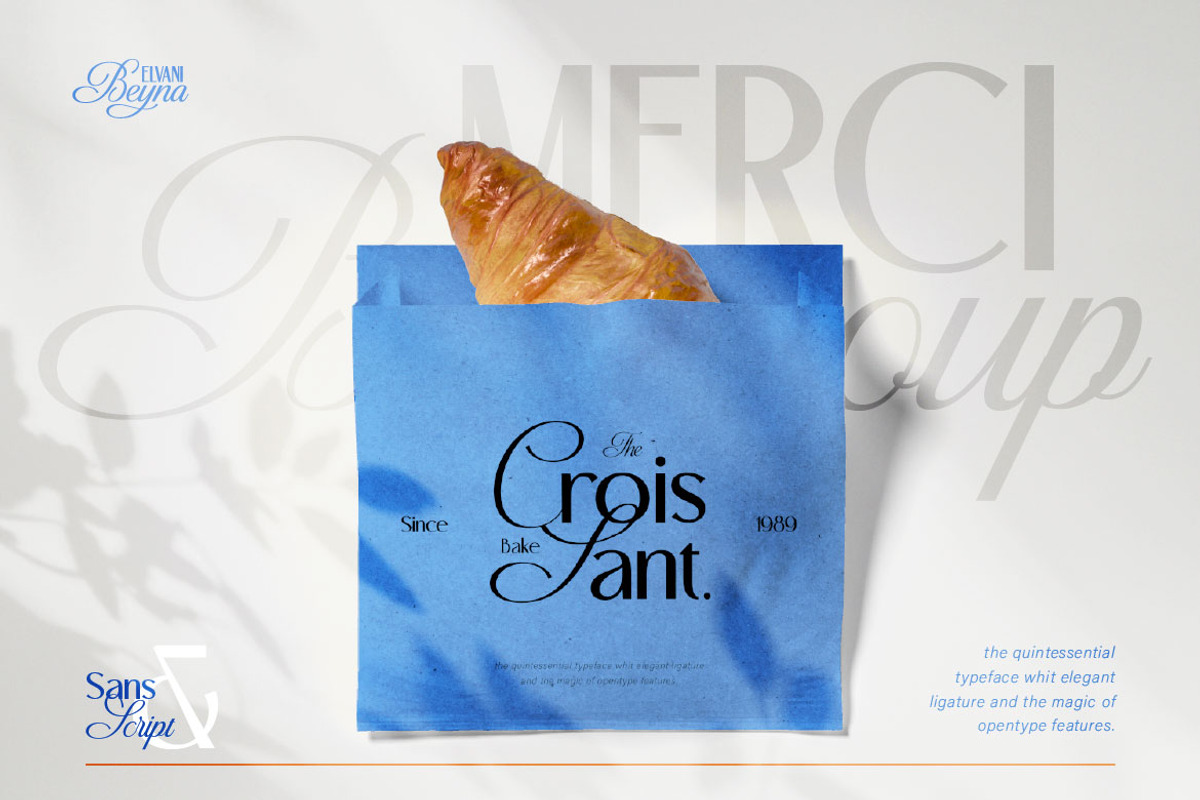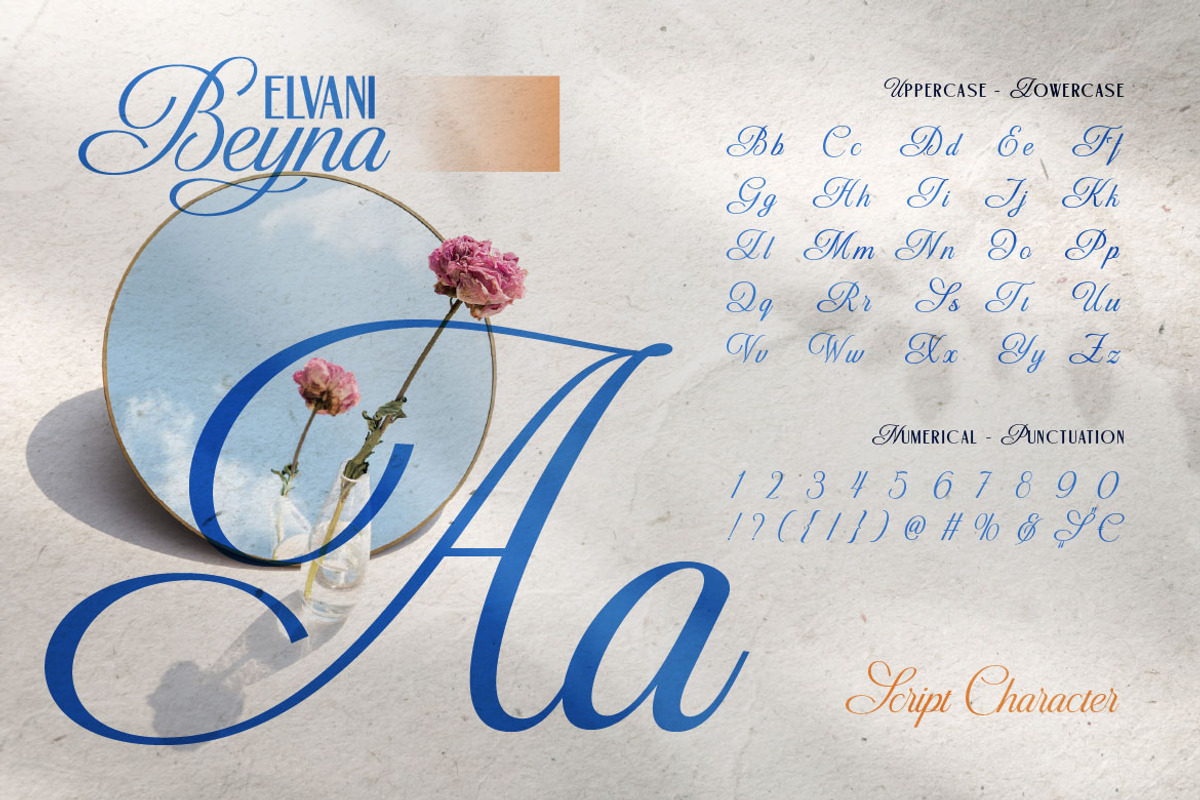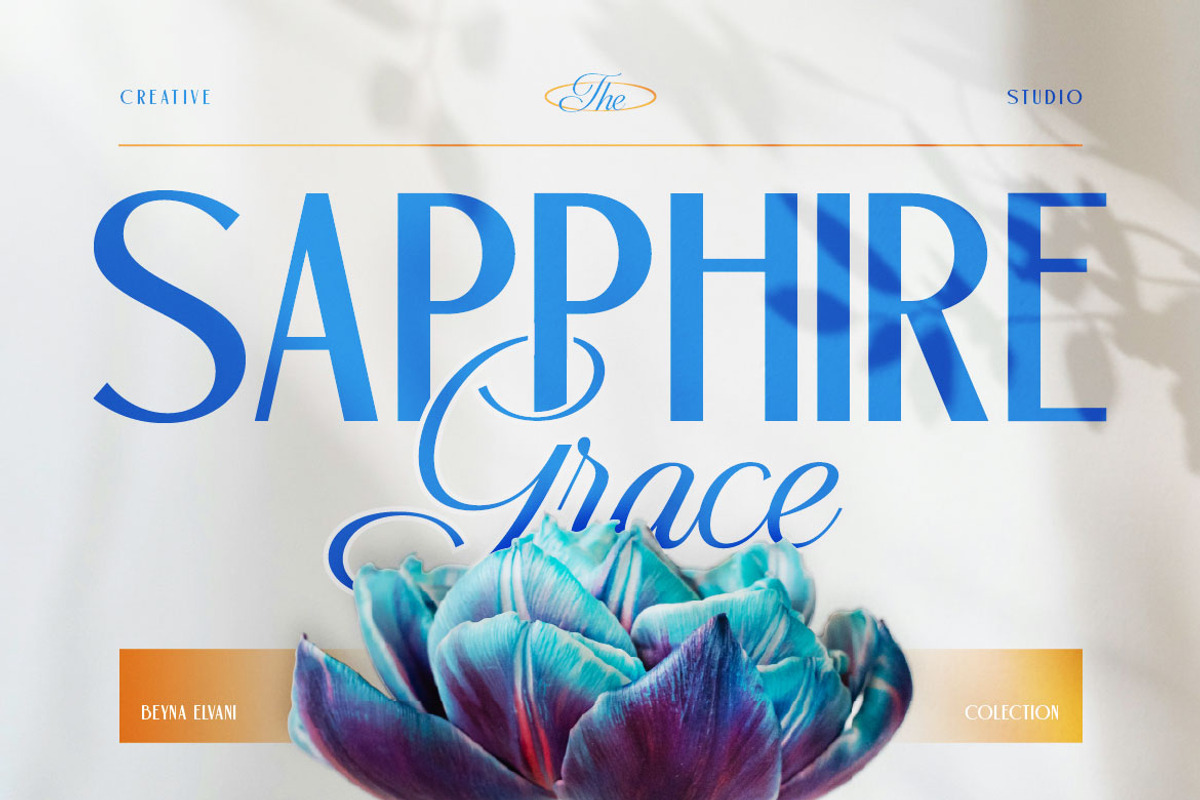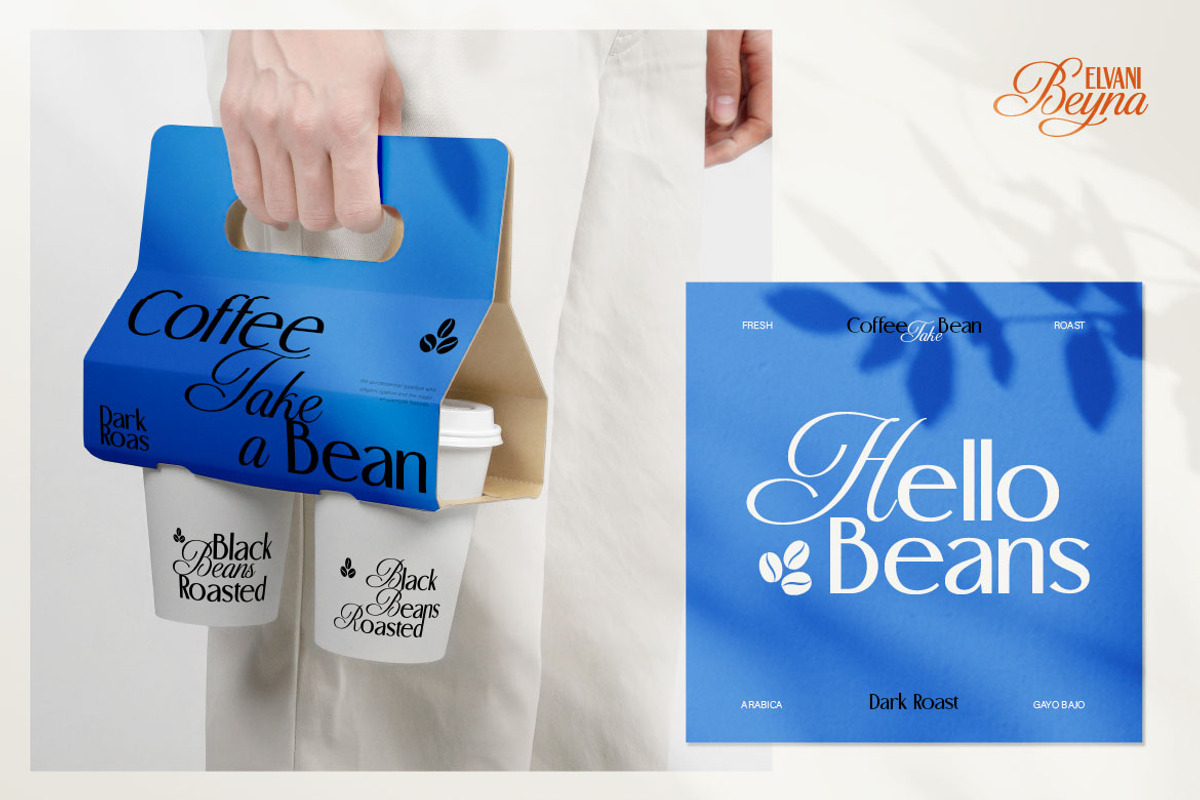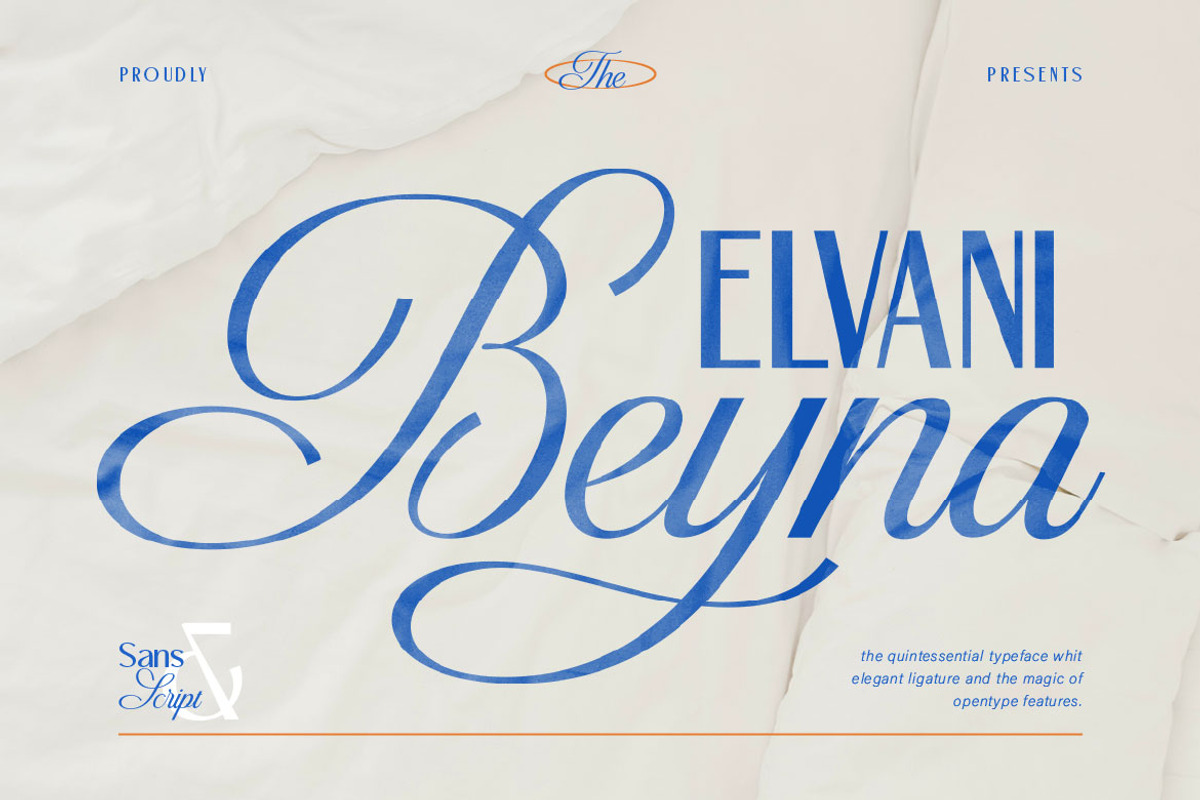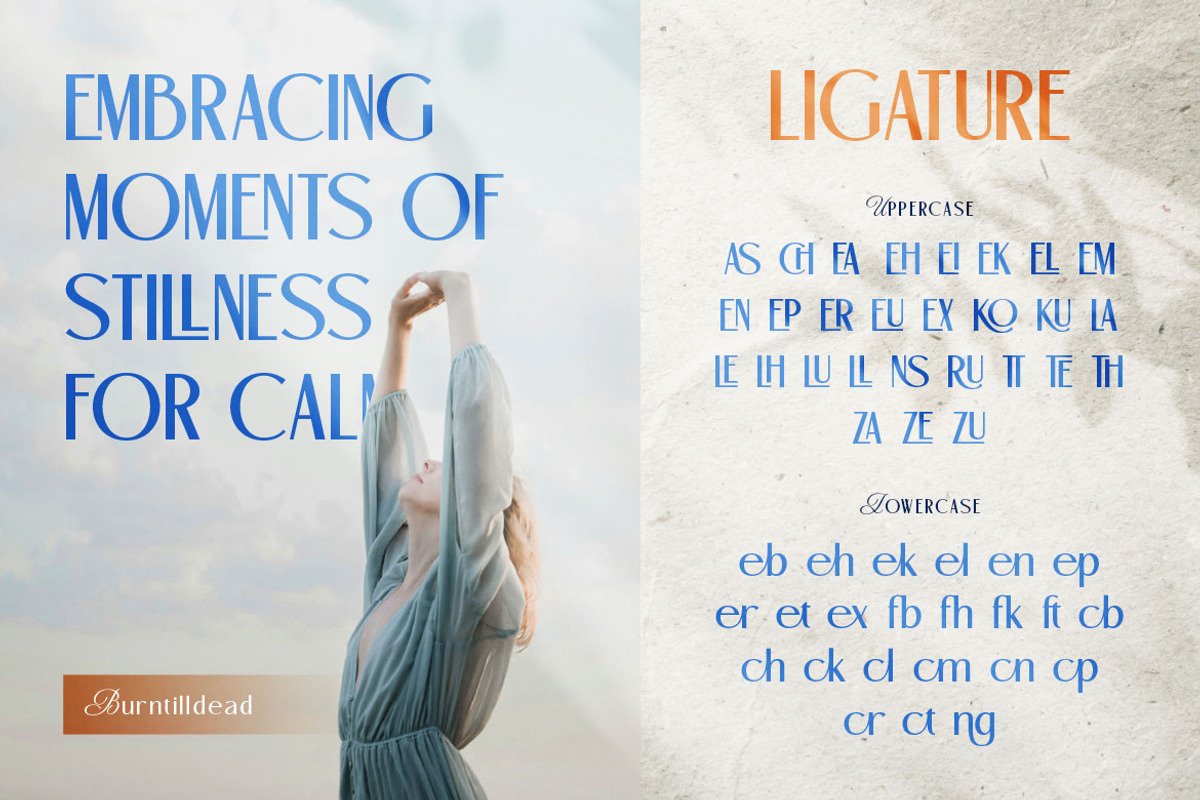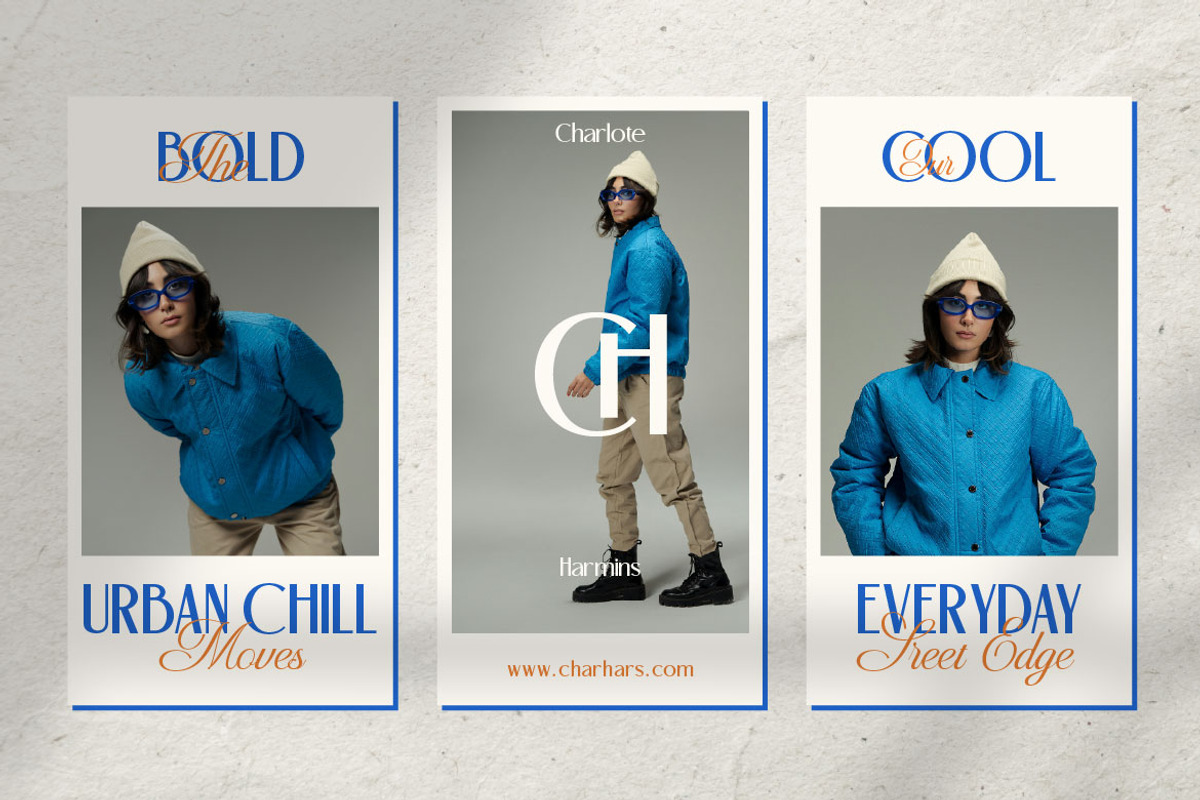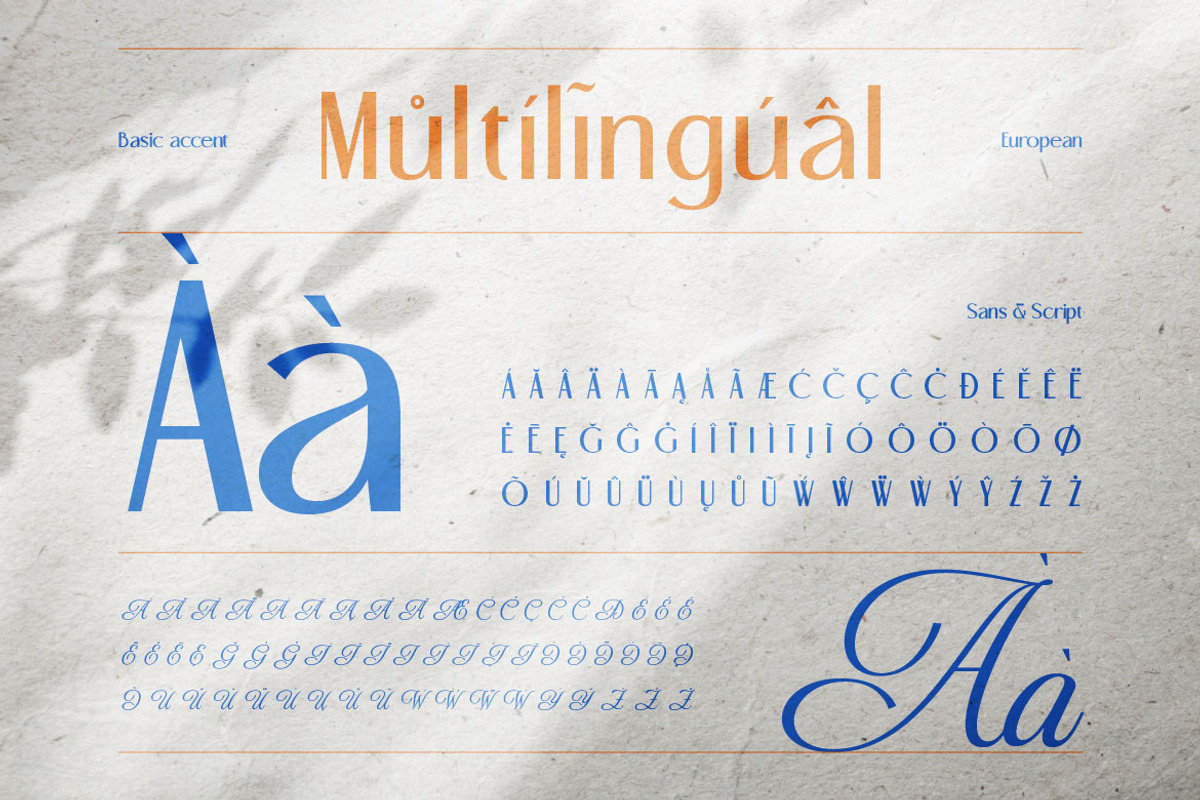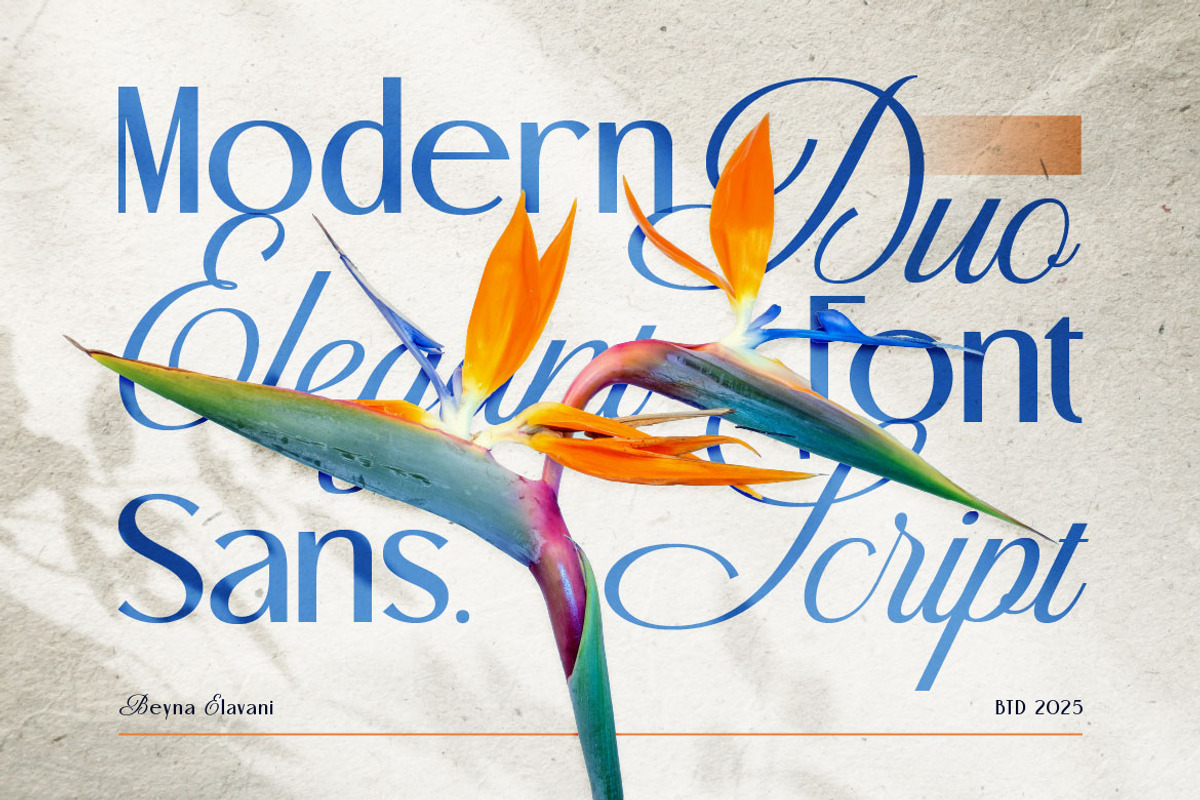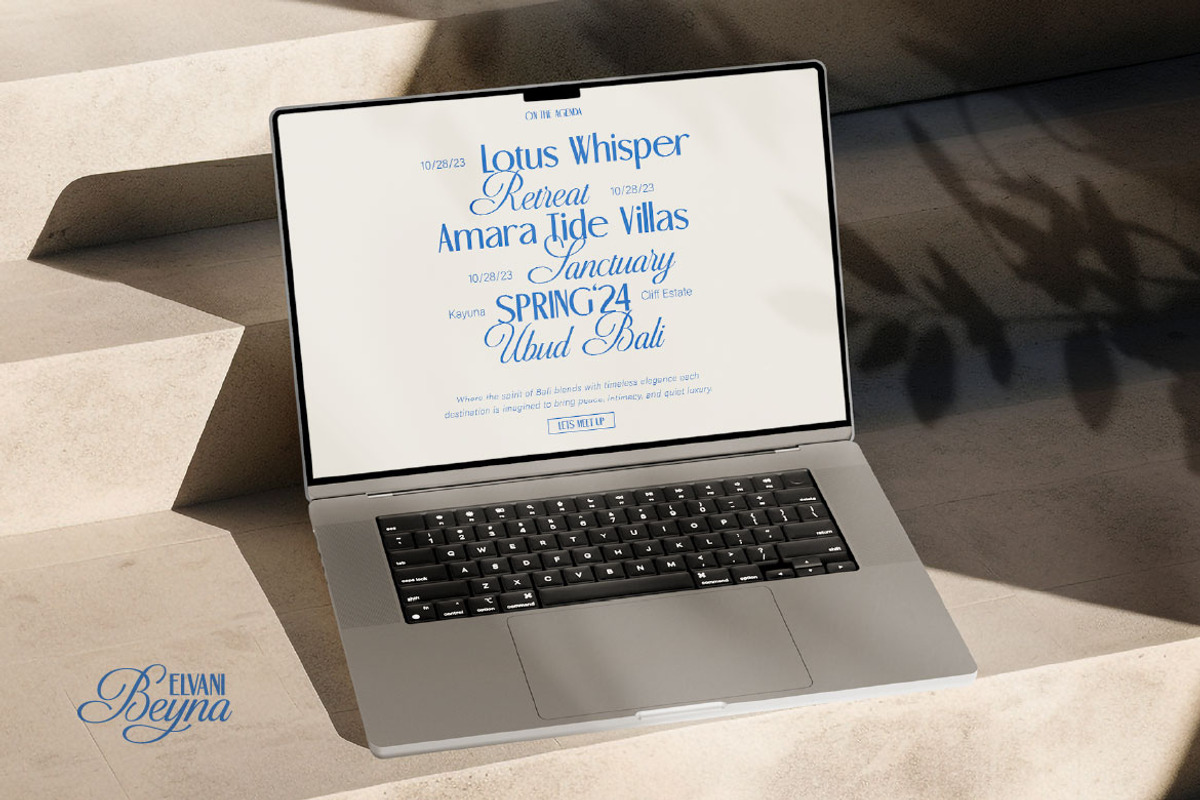
Beyna Elvani - Elegant Sans & Script
If you’re looking for a font duo that feels both classy and modern, Beyna Elvani is here to impress. This typeface combines two beautiful styles in one: Beyna, a flowing and graceful script font, and Elvani, a clean and stylish sans serif. Together, they create the perfect balance between sophistication and readability. From the first glance, Beyna brings a touch of romance with its smooth curves, delicate ligatures, and elegant flow. It’s perfect for logos, wedding invitations, branding, and anything that needs a luxurious handwritten feel. On the other hand, Elvani grounds the design with its sharp lines and minimal sans serif style, making it versatile for modern layouts, headlines, and body text. What makes Beyna Elvani special is how seamlessly these two styles complement each other. You can pair the script for highlights or names, while the serif keeps your design neat and professional. It’s like having two fonts that were truly made for each other. Whether you’re designing for fashion, lifestyle, beauty brands, or editorial projects, Beyna Elvani font duo gives you the flexibility to create designs that feel timeless yet trendy.
A - Z set (Uppercase & Lowercase)
Number
Alternate
Ligature
Beyna Elvani Characters Map